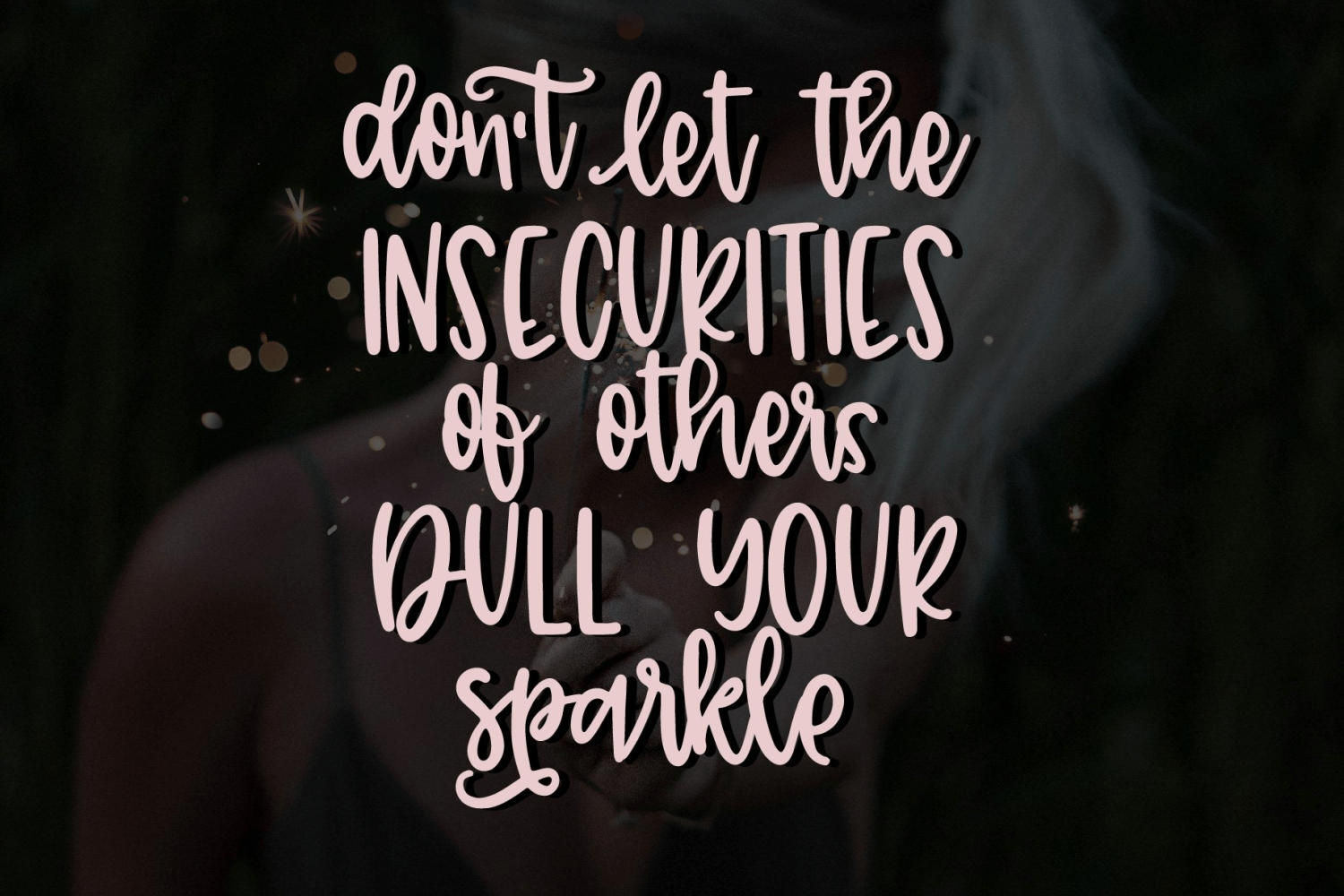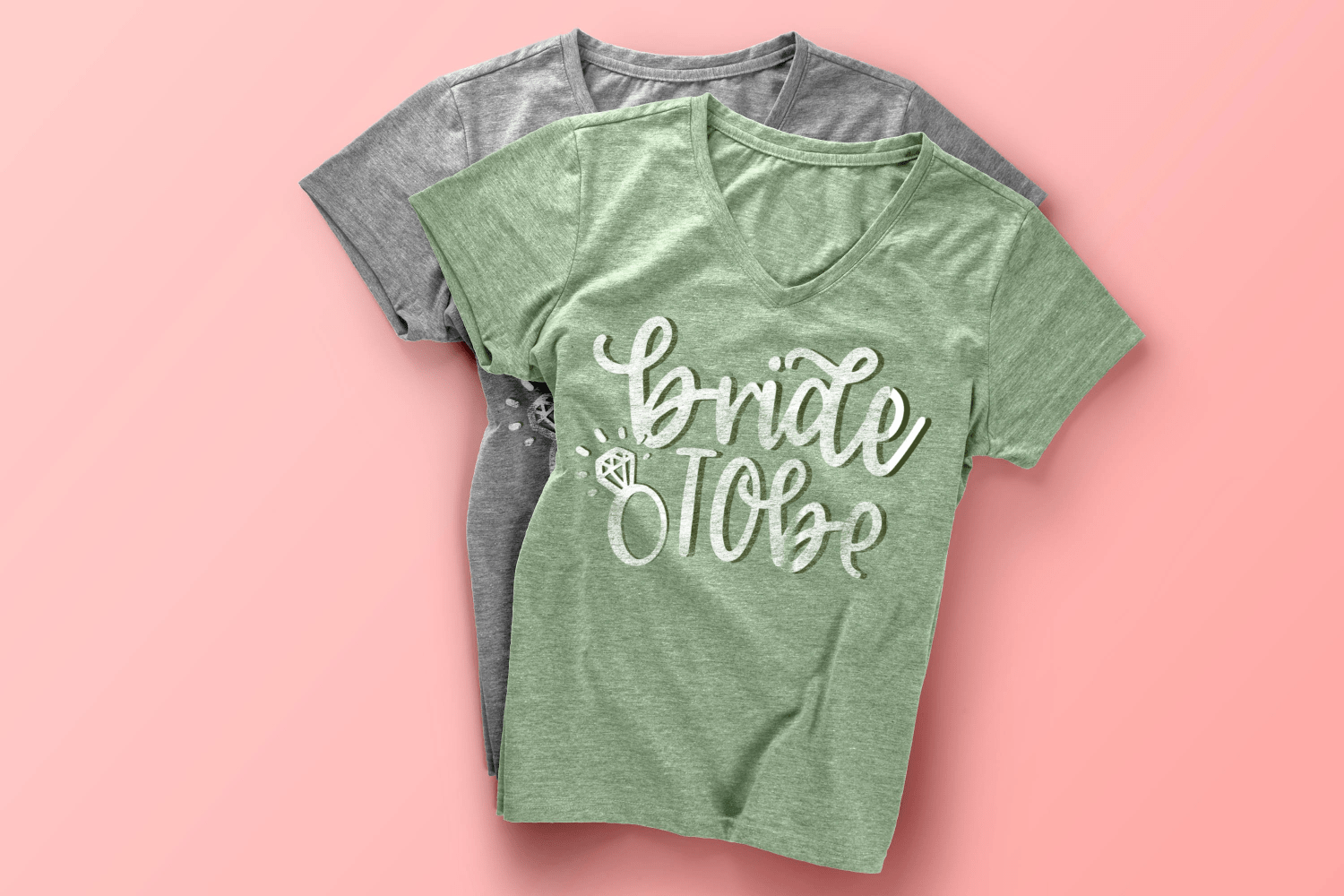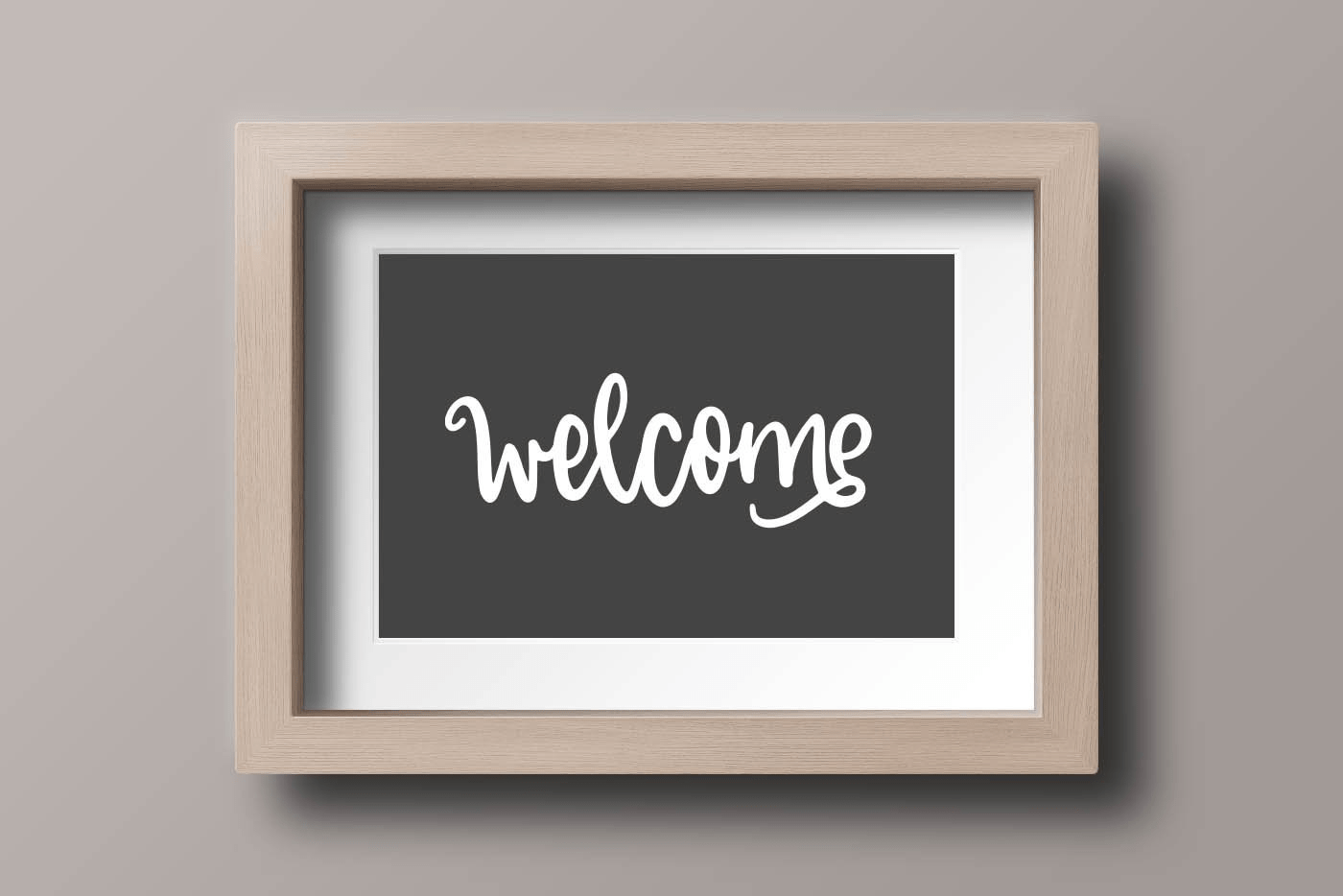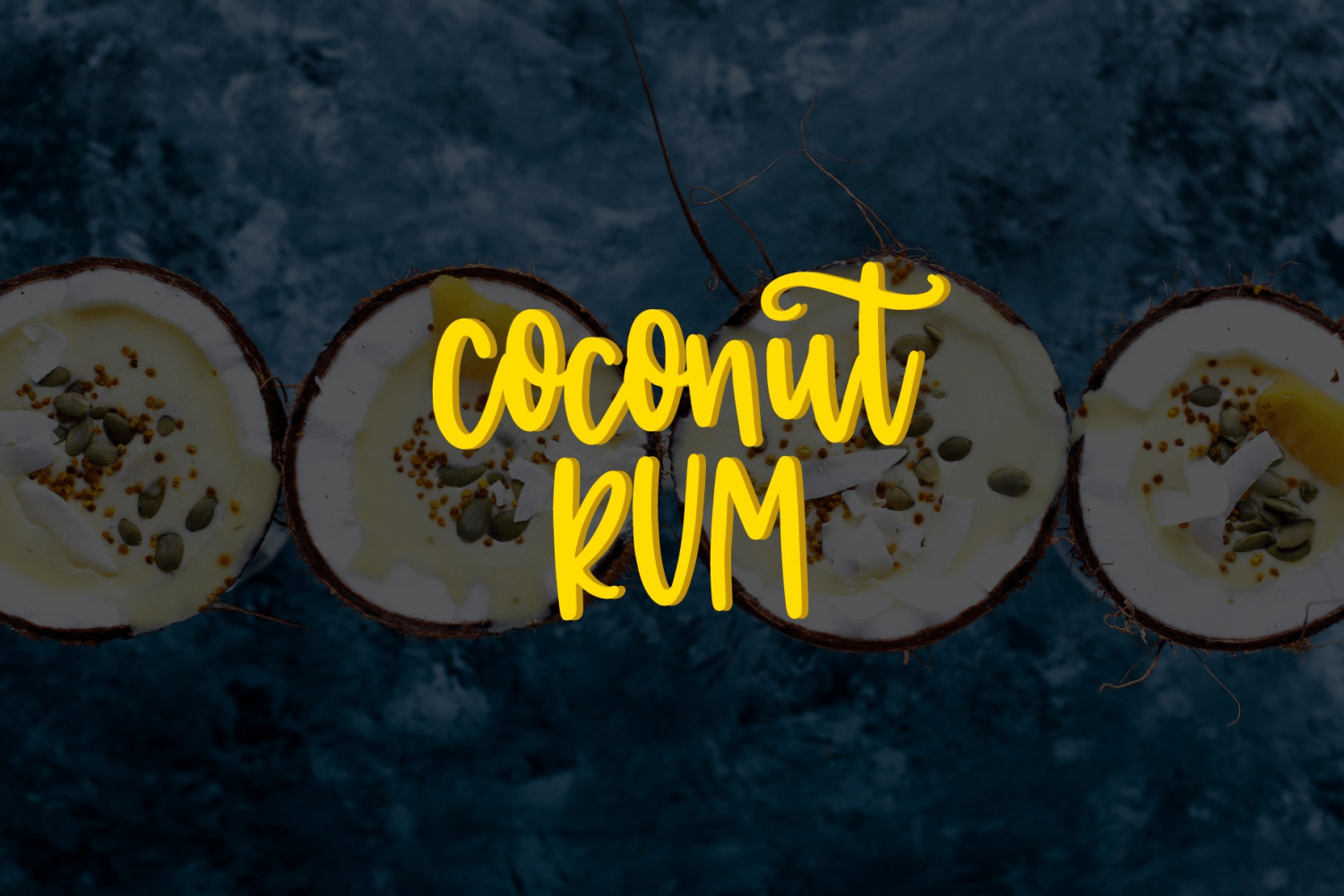
About Coconut Rum
Coconut Rum is the perfect script for your quirky project! Including two full lowercase alphabets along with a bouncy and fun uppercase, CR offers alternates and ligatures to further make your project unique.